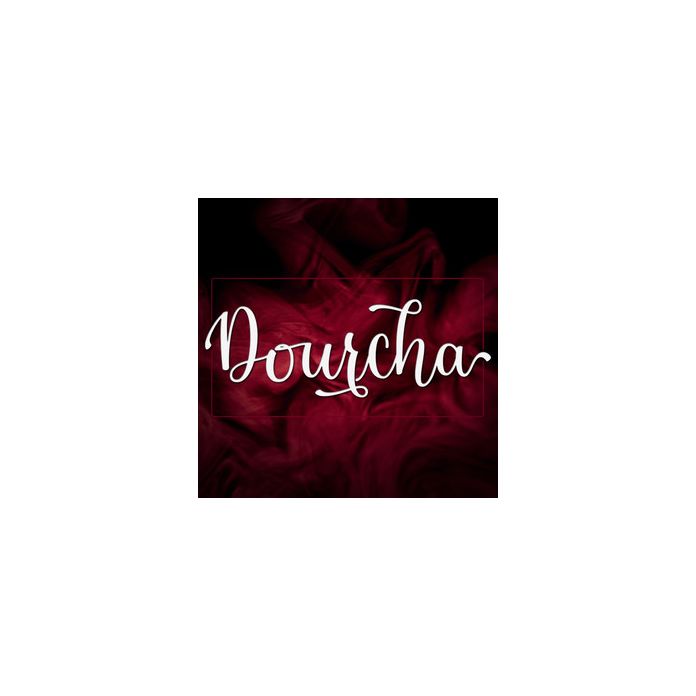
The Dourcha is a modern script font. It has a trendy and feminine style and includes an irregular baseline.
It looks good on wedding invitations, thank you cards, quotes, greeting cards, logos, business cards and more.